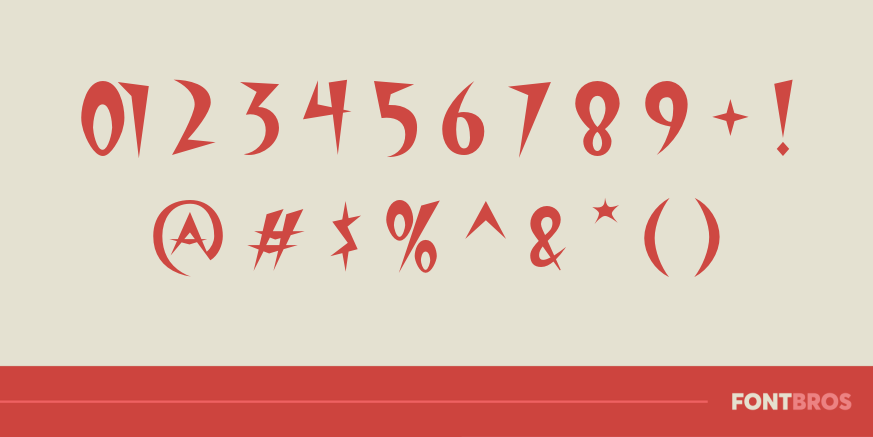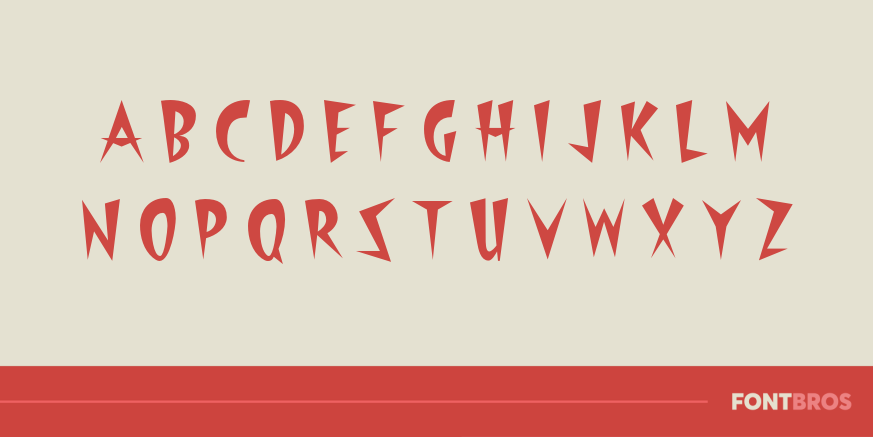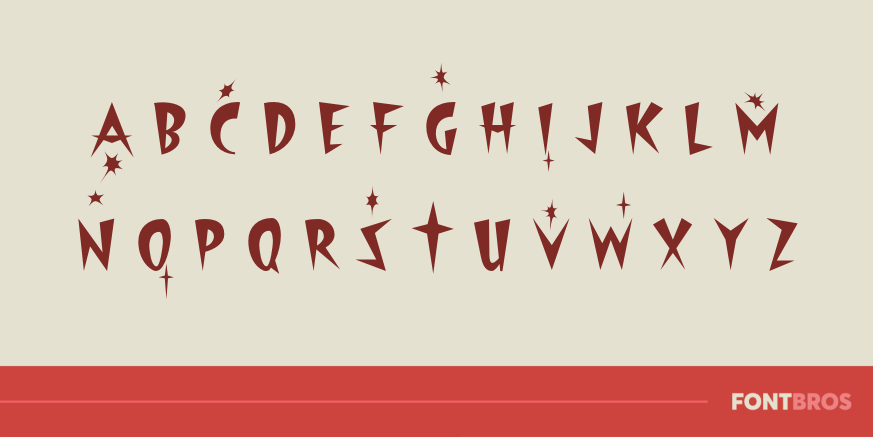
Starburst Lanes Twinkle
Font Family by Font Diner
Blast into orbit with this space age 1950s inspired font complete with stars and constellations to light your way home!